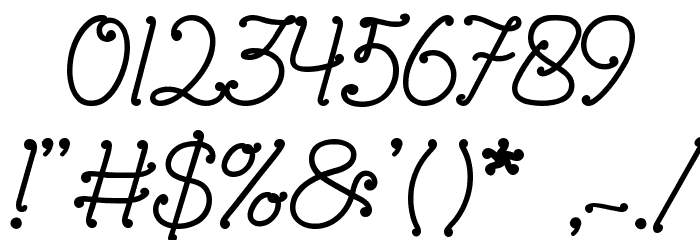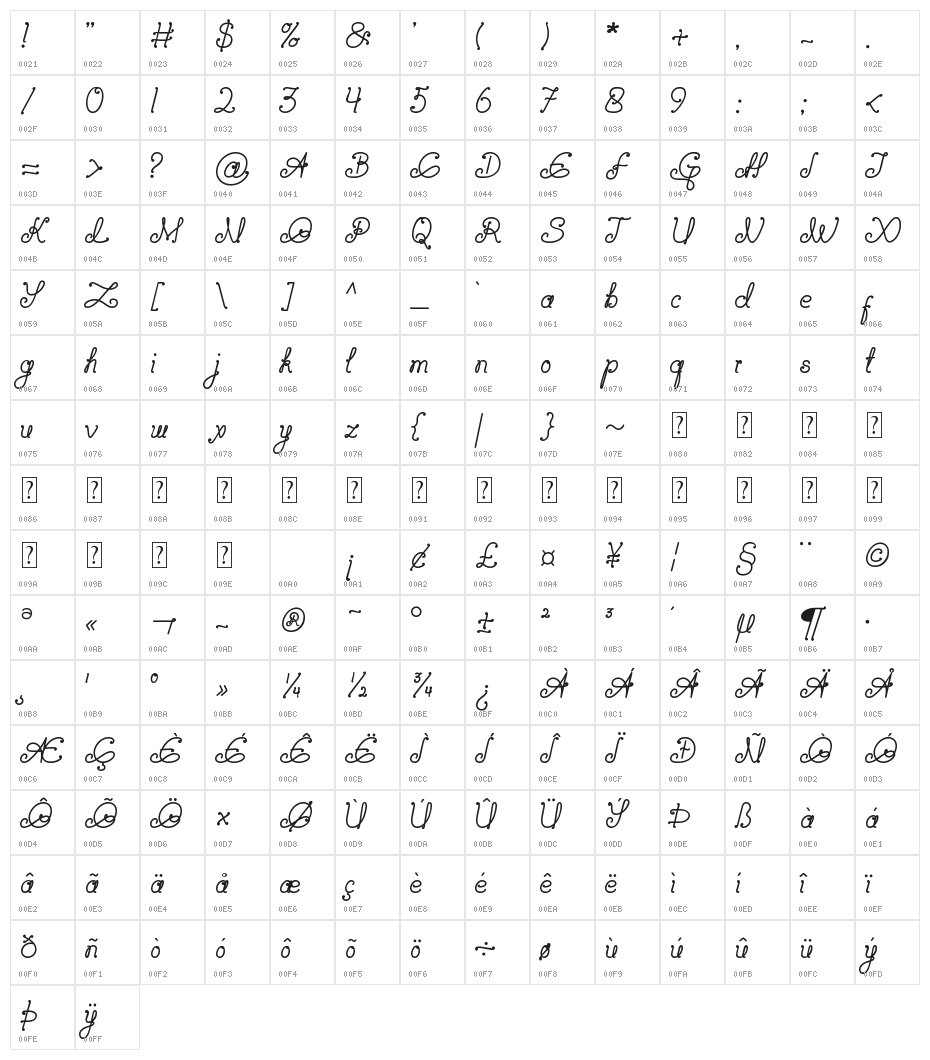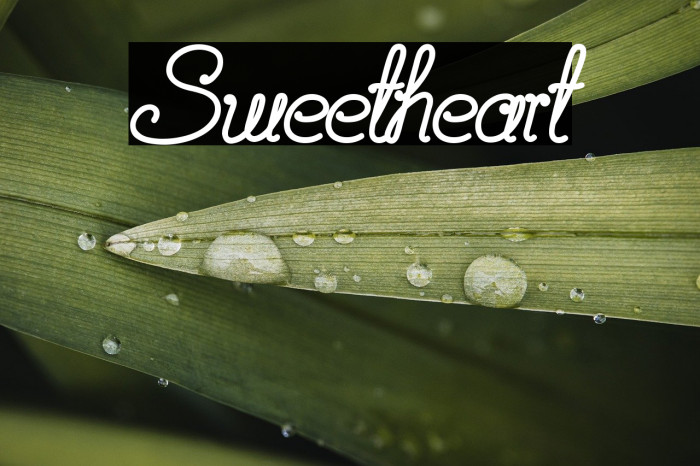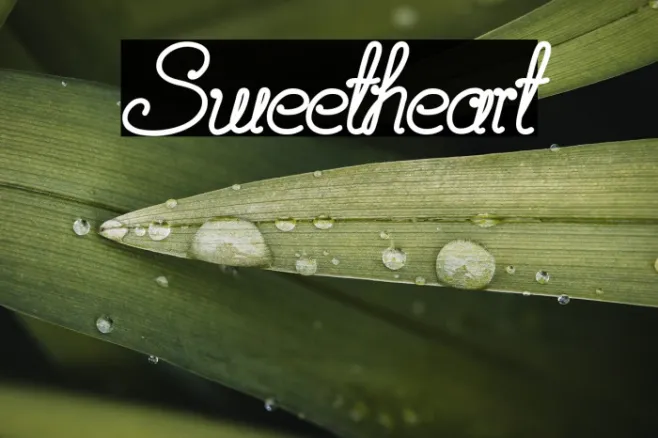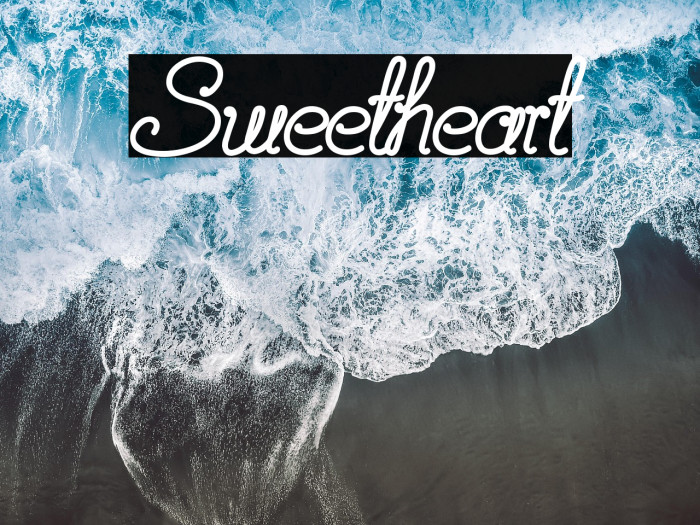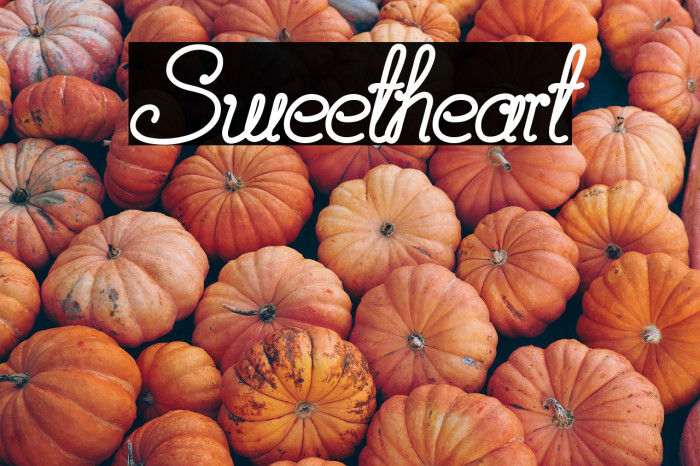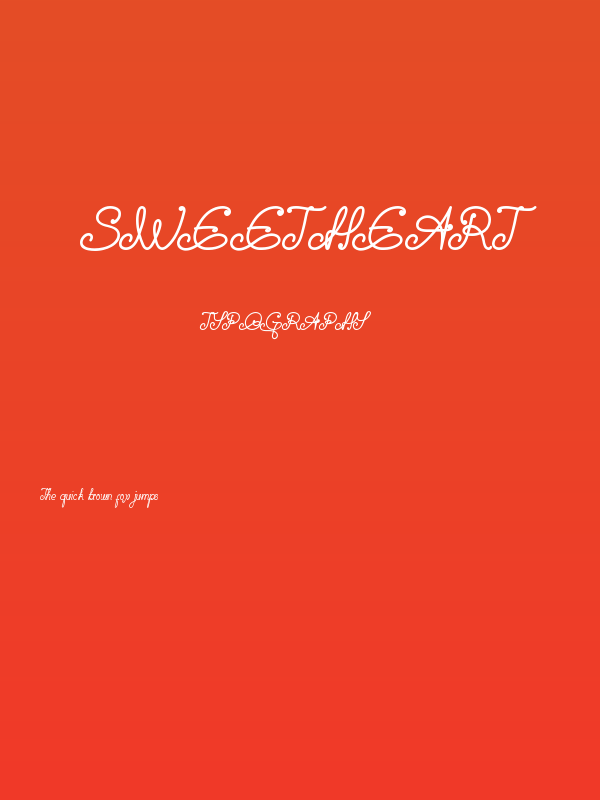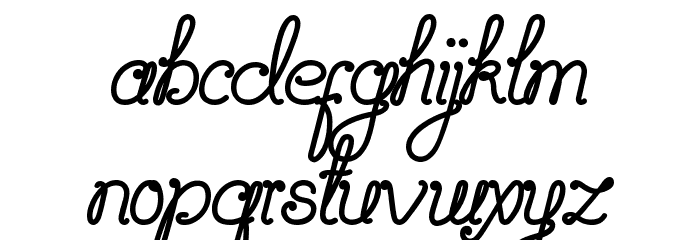
Sweetheart Font
Sweetheart Description
This elegant script font features a flowing, cursive style with intricate loops and swashes, giving it a romantic and sophisticated appearance. The uppercase letters are adorned with decorative flourishes, while the lowercase letters maintain a consistent, smooth flow. The numerals and special characters are designed with the same attention to detail, ensuring a cohesive look across all elements. This font exudes a sense of grace and charm, making it ideal for projects that require a touch of elegance.
| Overall Style | Romantic |
| Proposed Projects | Ideal for wedding invitations, greeting cards, branding, and elegant packaging designs. |